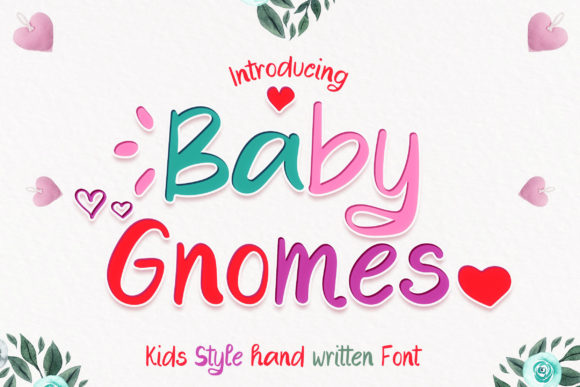
Baby Gnomes Font: The Ultimate Choice for Whimsical and Playful Designs
The world of typography is vast and diverse, with numerous fonts catering to different tastes and preferences. Among these, the Baby Gnomes font stands out for its unique blend of joyfulness and friendliness. This handwritten font, characterized by its cute doodle elements, has captured the hearts of designers and enthusiasts alike. In this article, we’ll explore the features, benefits, and uses of the Baby Gnomes font, and why it’s an excellent choice for creating lovely designs for school or child-related projects.
What is Baby Gnomes Font?
Baby Gnomes is a delightful, handwritten font that exudes a sense of playfulness and innocence. Its sweet and versatile style makes it an ideal choice for designs that require a touch of whimsy and charm. The font features cute doodle elements that add a personal and endearing touch to any design.
Key Features of Baby Gnomes Font
- Handwritten style: Baby Gnomes boasts a genuine, handwritten look that adds a personal touch to designs.
- Cute doodle elements: The font includes adorable doodle elements that enhance its playful and whimsical nature.
- Sweet and versatile style: Its sweet and versatile style makes it suitable for a wide range of design applications.
- Easy to read: Despite its playful nature, Baby Gnomes remains easy to read, making it functional for various design purposes.
Benefits of Using Baby Gnomes Font
The Baby Gnomes font offers several benefits that make it a popular choice among designers. Some of these benefits include:
- Emotional connection: The font’s playful and innocent nature helps create an emotional connection with the audience, making designs more relatable and engaging.
- Uniqueness: Baby Gnomes stands out from more traditional fonts, giving designs a distinctive and memorable look.
- Versatility: The font’s versatility allows it to be used across various design applications, from school projects to child-related marketing materials.
- Easy to pair: Baby Gnomes pairs well with other fonts, making it easy to create harmonious and visually appealing designs.
Uses of Baby Gnomes Font
The Baby Gnomes font is suitable for a wide range of design applications, including:
- School projects: The font’s playful and innocent nature makes it perfect for school projects, such as posters, presentations, and worksheets.
- Child-related designs: Baby Gnomes is an excellent choice for designs aimed at children, including children’s books, toys, and marketing materials.
- Party decorations: The font’s whimsical nature makes it ideal for party decorations, such as invitations, banners, and DIY decor.
- Social media graphics: Baby Gnomes can add a playful touch to social media graphics, making them more engaging and shareable.
Design Tips for Using Baby Gnomes Font
To make the most of the Baby Gnomes font, consider the following design tips:
- Keep it simple: Balance the font’s playful nature with simple design elements to avoid visual overload.
- Experiment with colors: Play with bright and pastel colors to enhance the font’s whimsical and playful feel.
- Pair with complementary fonts: Combine Baby Gnomes with complementary fonts to create visually appealing and harmonious designs.
- Use creative formatting: Take advantage of the font’s doodle elements and experiment with creative formatting to add visual interest.
Pairing Baby Gnomes with Other Fonts
Pairing Baby Gnomes with other fonts can create visually appealing and harmonious designs. Some font pairing suggestions include:
- Open Sans: A clean and modern sans-serif font that balances Baby Gnomes’ playfulness.
- Lato: A sleek and elegant sans-serif font that complements Baby Gnomes’ whimsical nature.
- Merriweather: A classic serif font that adds a touch of sophistication to designs featuring Baby Gnomes.
In conclusion, the Baby Gnomes font is a delightful and versatile choice for designers looking to add a touch of whimsy and playfulness to their designs. Its sweet and friendly style, combined with its cute doodle elements, makes it perfect for school projects, child-related designs, and more. By following the design tips and font pairing suggestions outlined in this article, you can create engaging and memorable designs that showcase the unique charm of Baby Gnomes font.